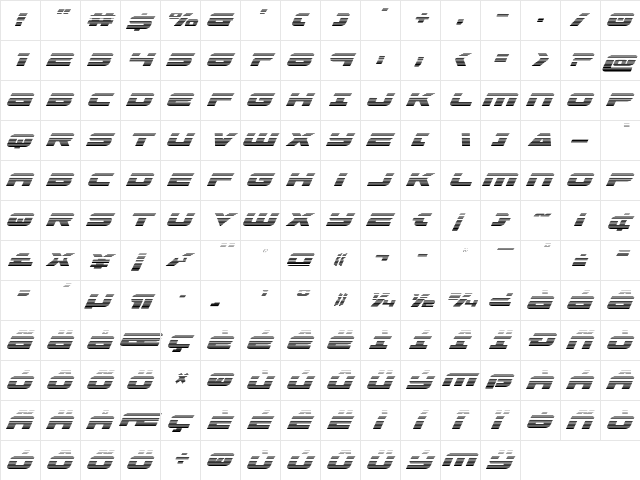
Speed Phreak Gradient Italic Italic
Design Context for Speed Phreak Gradient Italic Typeface
Speed Phreak Gradient Italic is a composed and adaptable typeface that performs quietly and consistently across a wide range of design contexts. The dynamic lean of this cut emphasises speed and emphasis in any layout.
Pro Tip: Try Speed Phreak Gradient Italic for annotation and caption copy alongside an upright companion — the contrast in angle creates a dynamic but ordered typographic system.